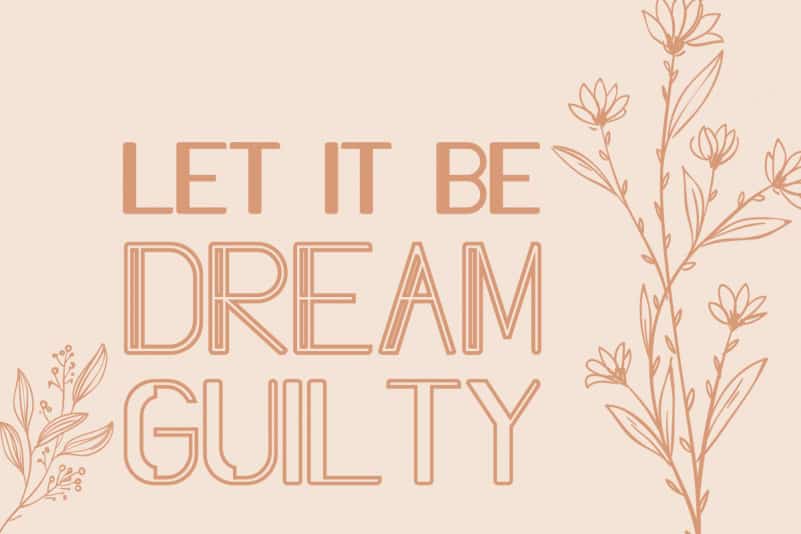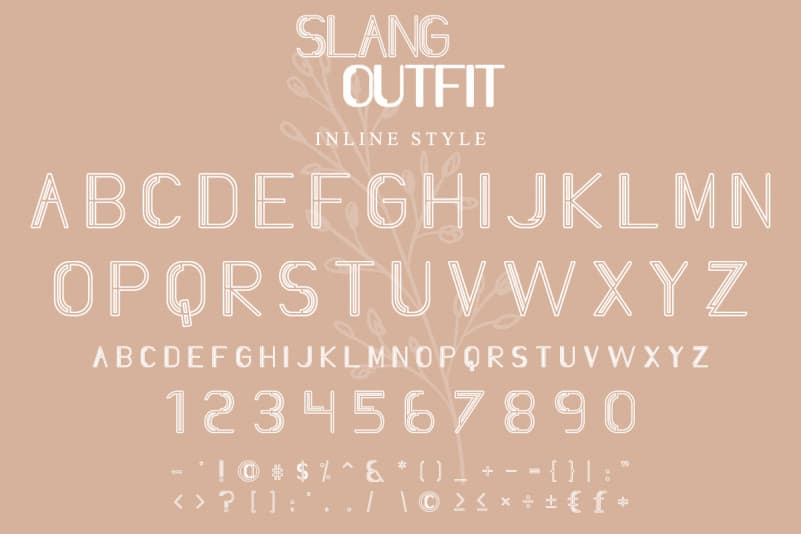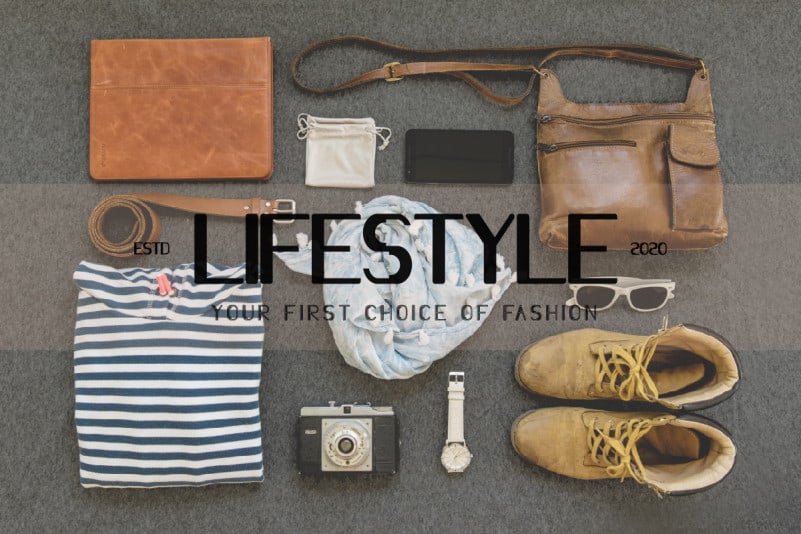
Slang Outfit Sans Serif Font
Hello, Slang Outfit Sans Serif Font will be great for any projects including : branding, logo, stationery, business card, signage, flyer, brochure etc. Almost all industries will be match for this typeface: wedding, events, real estate, architect, law firm, florist, gardening, makeup artist, travel, hotel, musician etc.